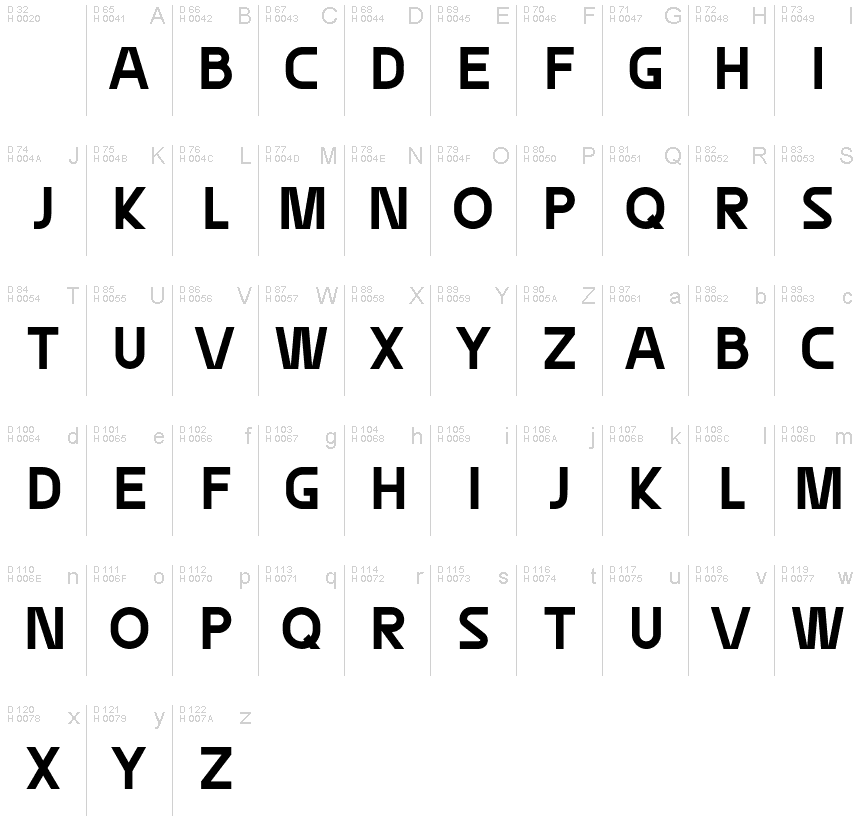
New Logic Regular
New Logic, a sleek and modern sans serif font by Vladimir Nikolic, is the perfect choice for projects that require a clean and contemporary look. With its semi-expanded width, this font exudes a sense of balance and professionalism.
Use New Logic for website headers, corporate logos, or editorial designs to impress your audience with its sophisticated simplicity. Its versatility allows it to seamlessly adapt to various creative endeavors such as packaging design, fashion branding, or even futuristic sci-fi posters.
Let New Logic elevate your visual communication with its timeless appeal and refined aesthetics.